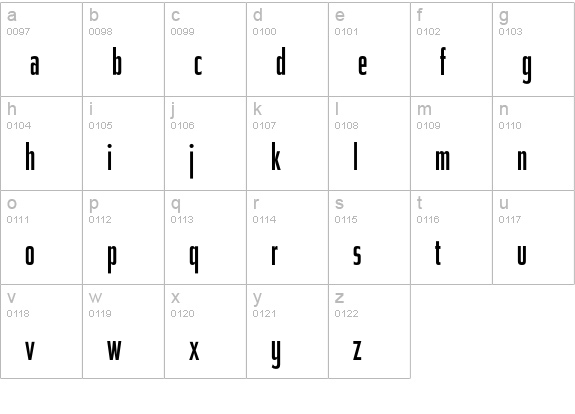
Tasse Regular Cond is the standard, neutral, condensed-width variant in the Tasse typeface family \xE2\x80\x94 well suited to general body text, paragraphs, and standard typographic work.
Introducing Tasse Regular Cond, a sleek and modern font that combines elegance with functionality. This versatile typeface is perfect for a variety of design projects, from branding and advertising to web design and packaging. With its condensed form, Tasse Regular Cond allows for efficient use of space while maintaining readability. Featuring clean lines and subtle curves, this font exudes a sense of sophistication and professionalism. Its balanced letterforms and well-defined strokes make it easy to read at any size, ensuring that your message gets across clearly and effectively. Whether you're designing a logo, creating a brochure, or crafting a website, Tasse Regular Cond will elevate your project to new heights. But what sets Tasse Regular Cond apart is its accessibility. This incredible font is not only beautiful, but it is also free to download at FontsMarket.com. Yes, you read that right - Tasse Regular Cond is freely available, allowing designers of all levels to access high-quality typography without breaking the bank. So why wait? Take advantage of this amazing opportunity and enhance your designs with Tasse Regular Cond. Download it now at FontsMarket.com and let your creativity soar. Experience the seamless blend of elegance and functionality that this font offers, and watch as your projects come to life with a touch of modern sophistication. Don't miss out on this unique and free font - get Tasse Regular Cond today!